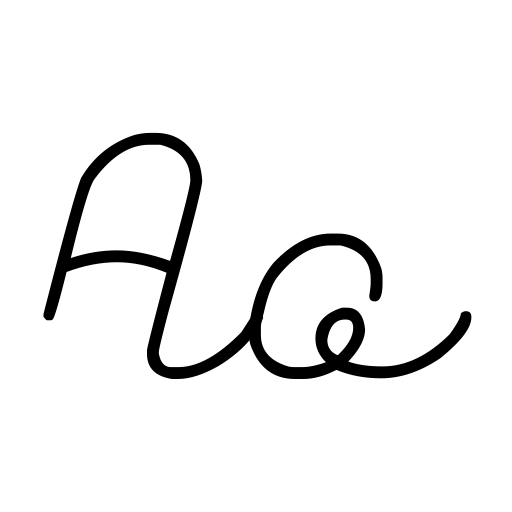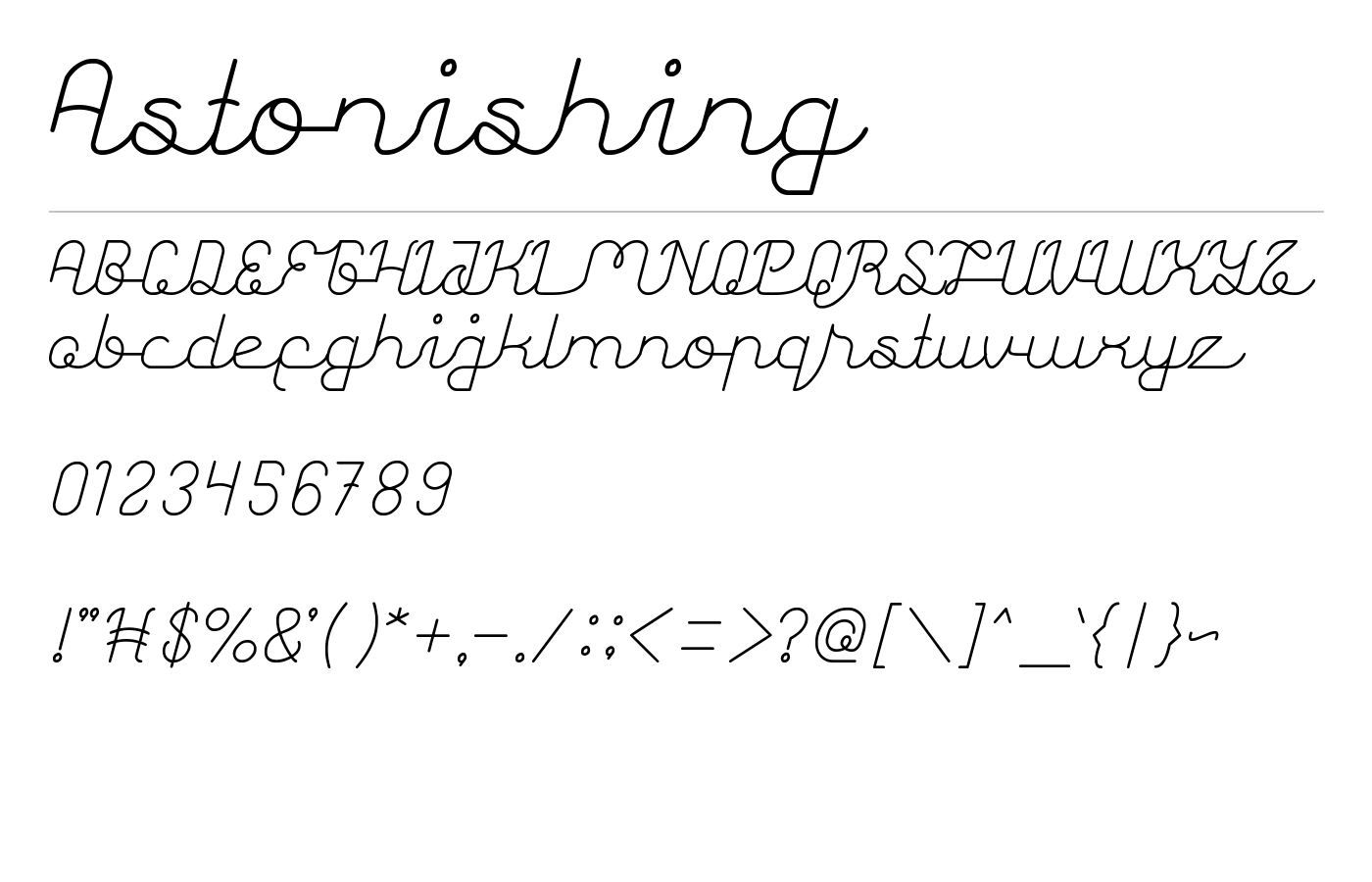
Astonishing is a delicate and playful script font with thin, continuous strokes that mimic elegant handwriting. Its light weight and airy spacing give it a modern, casual feel, making it ideal for creative branding, invitations, and stylish editorial use where a personal, approachable touch is desired. This font’s unique connected letterforms and smooth curves bring charm and sophistication without compromising readability.
Astonishing Font
About Astonishing Font